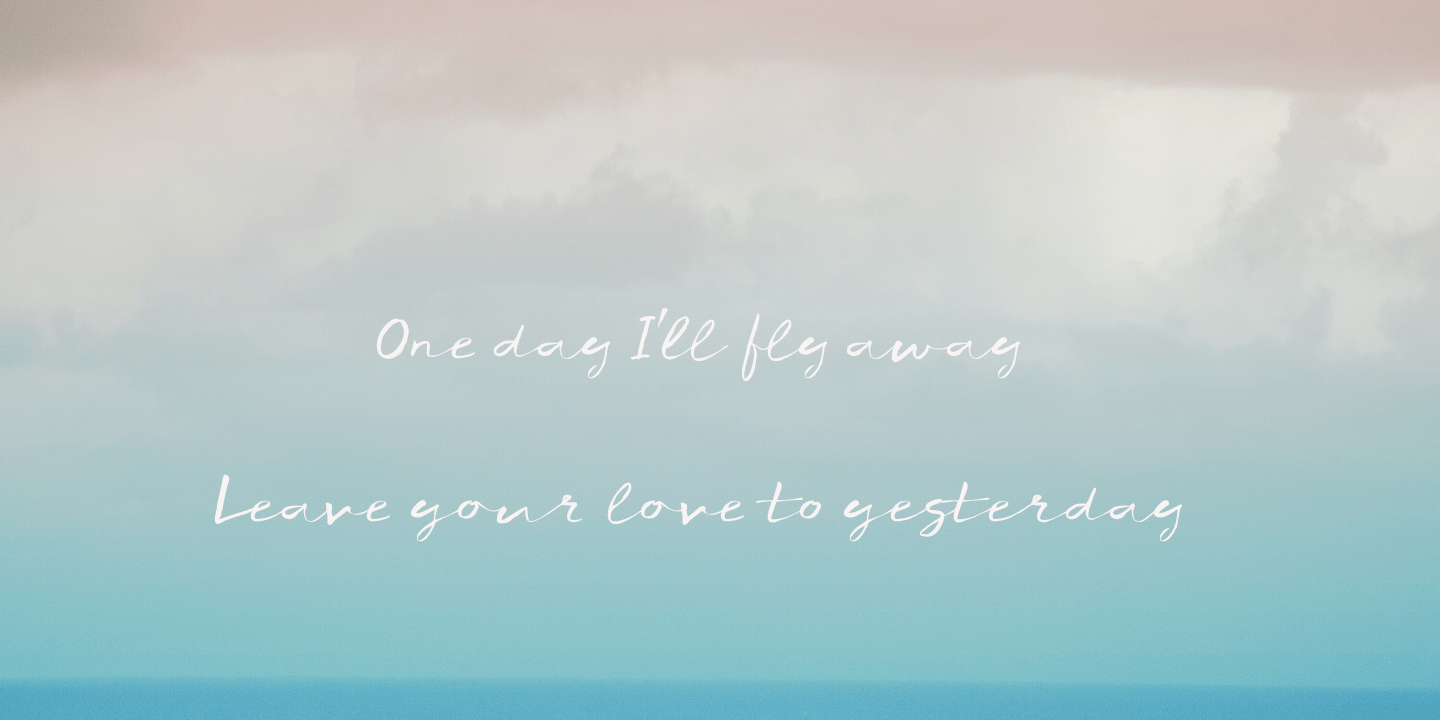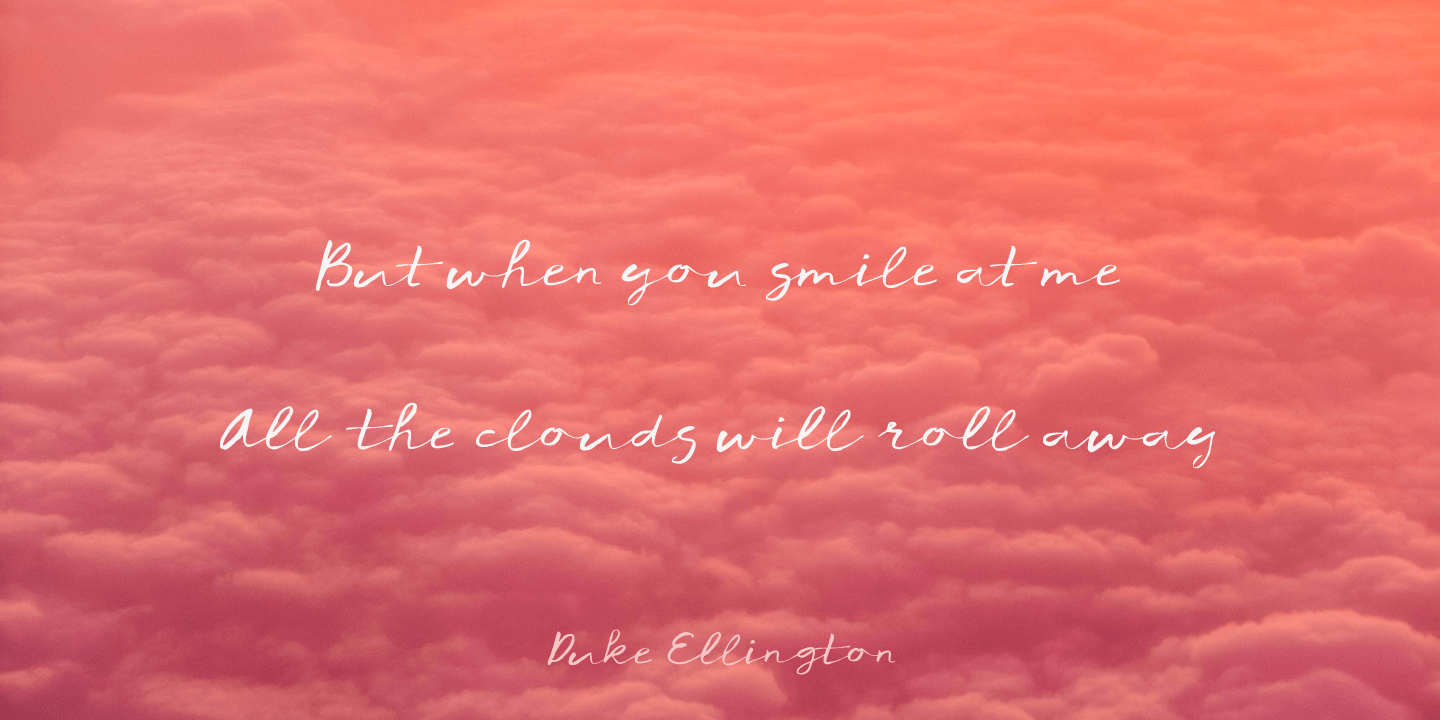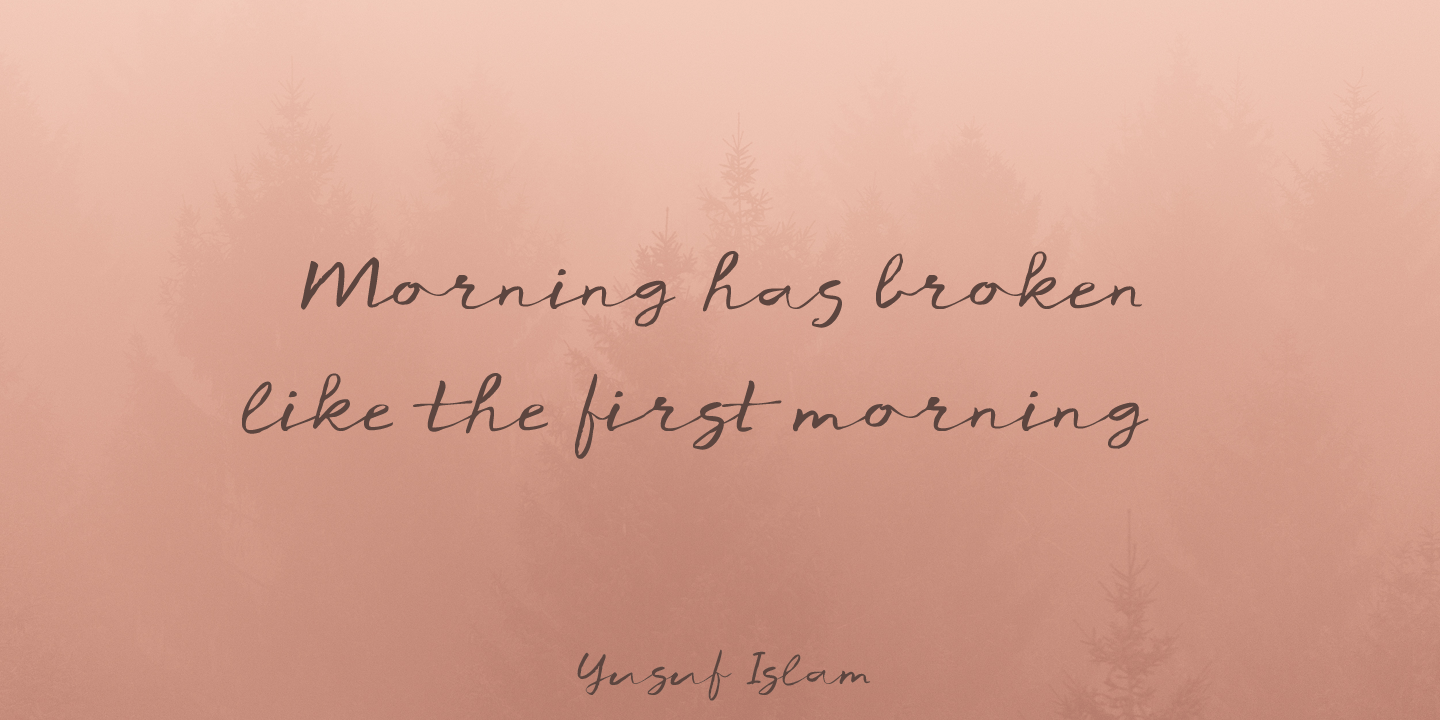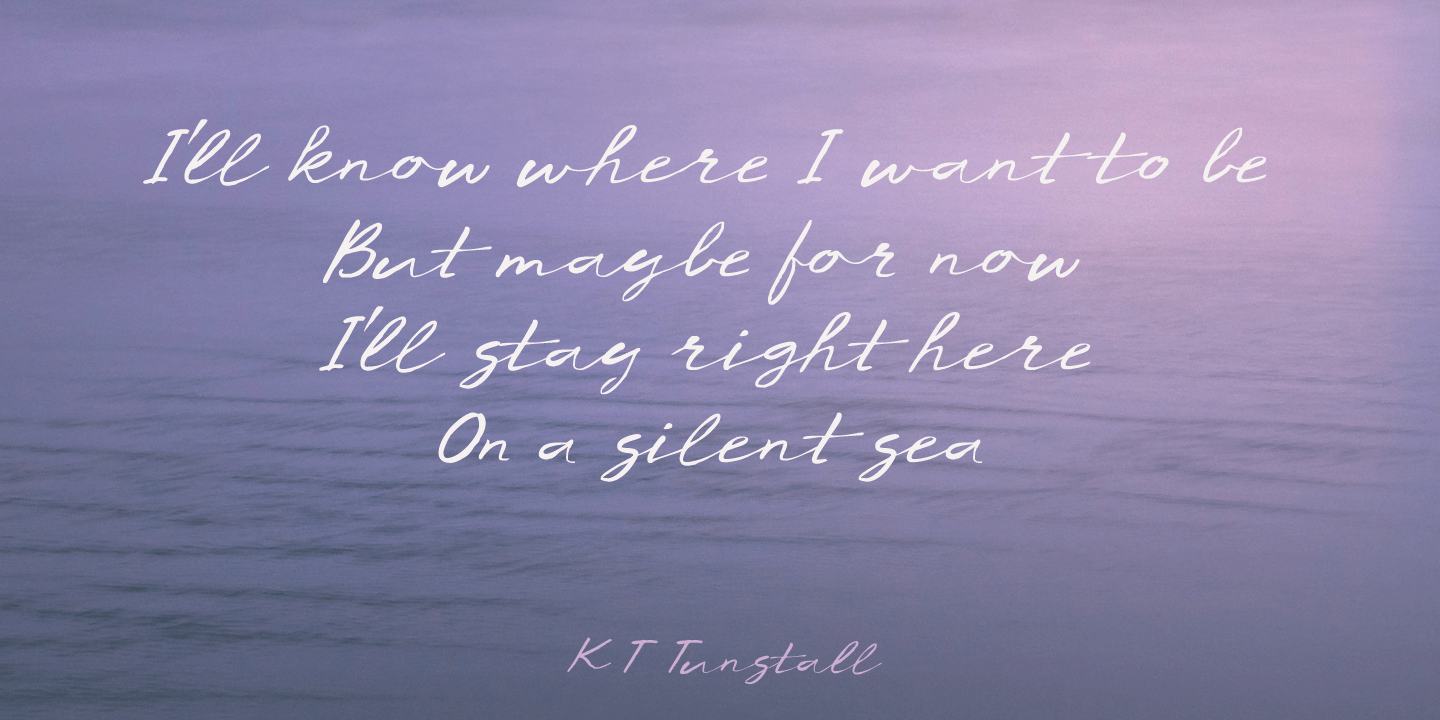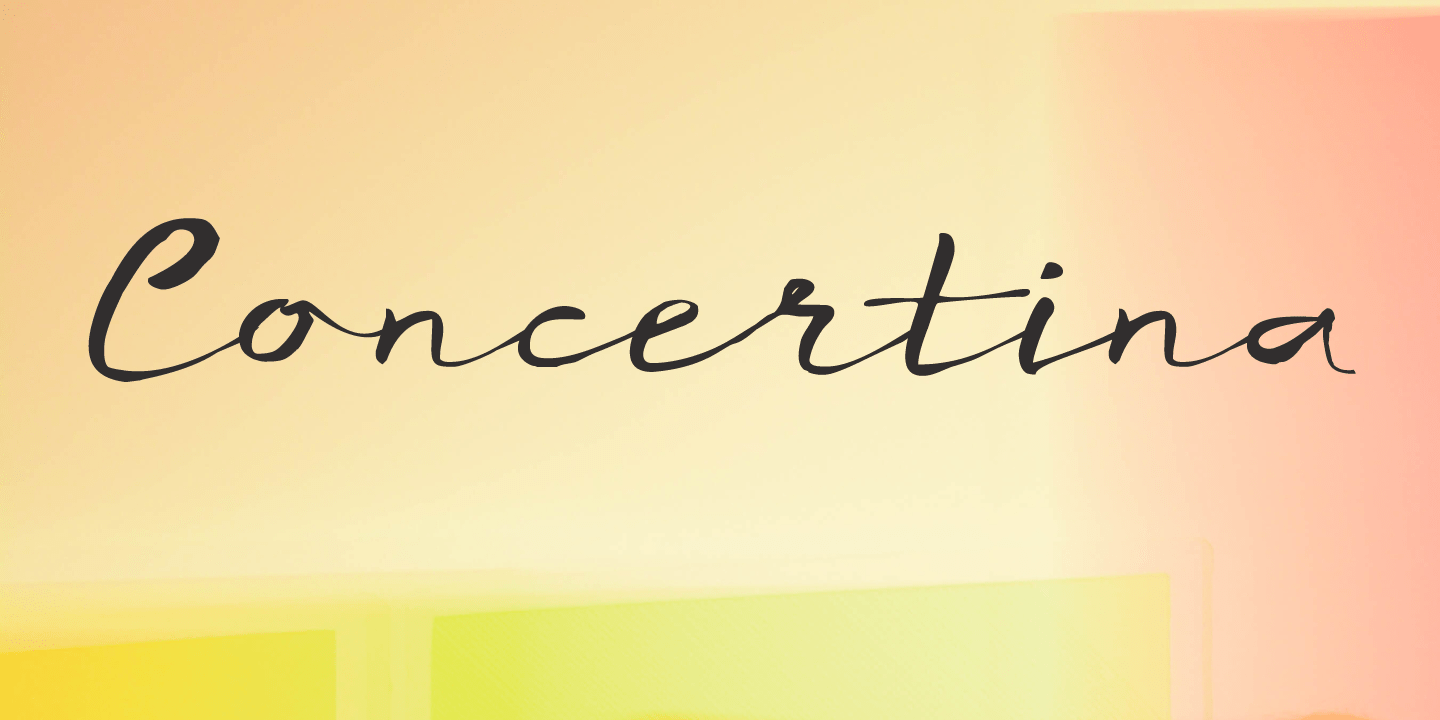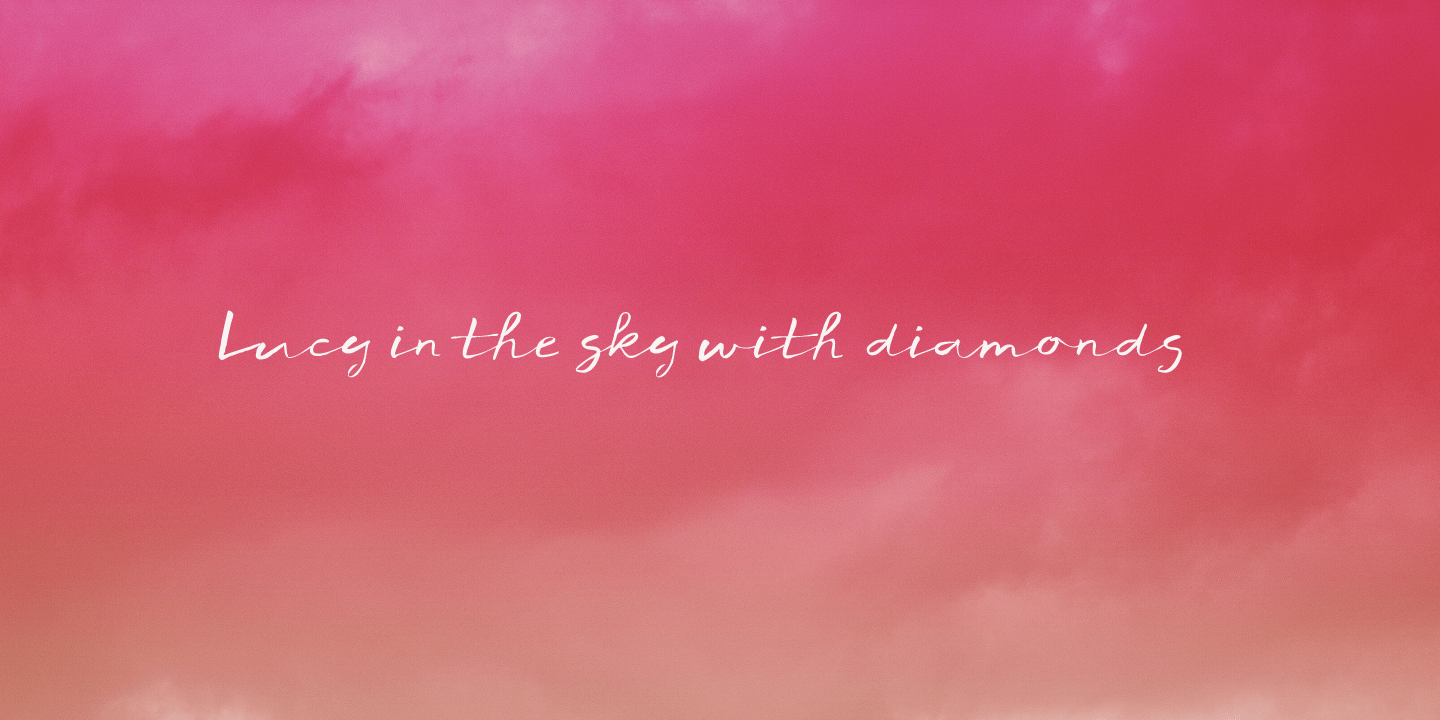
Concertina
About Concertina
A concertina is a kind of musical instrument, not unlike an accordeon. I just liked the name; I have to admit I?m not a particular fan of accordeon music? Concertina is a beautiful handmade script font. A little rough, but elegant as well. It was made…